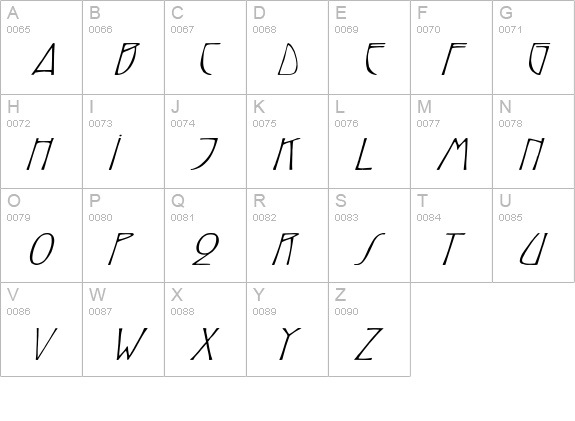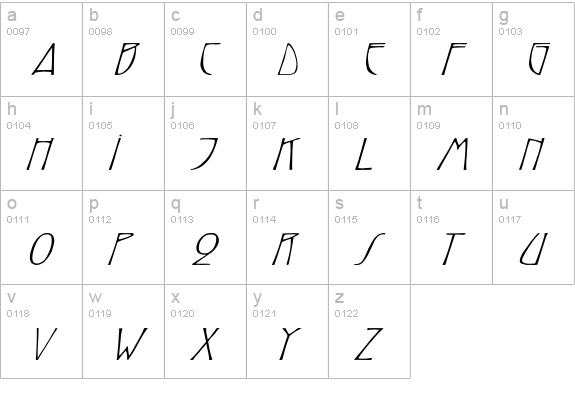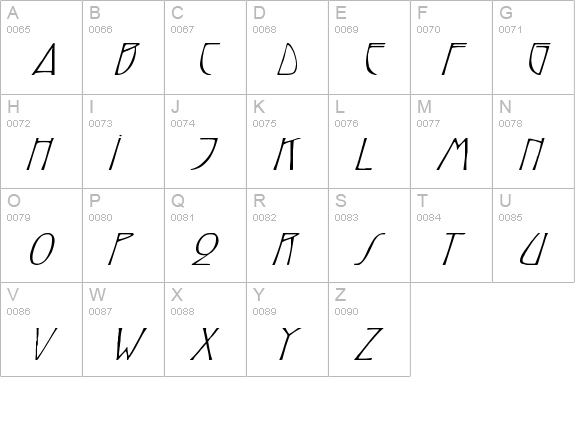
ReynoldCaps Wd Italic is a distinctive, italic variant in the ReynoldCaps typeface family \xE2\x80\x94 well suited to design and typography projects.
ReynoldCaps Wd Italic font is a stunning display typeface that adds a touch of elegance and sophistication to any design project. Its sleek and stylish letterforms are carefully crafted with a subtle italic inclination, creating a unique visual appeal that captures attention effortlessly. This font is perfect for creating eye-catching headlines, branding materials, logos, and more. Whether you're designing for print or digital media, ReynoldCaps Wd Italic font will elevate your work to new heights. One of the best features of ReynoldCaps Wd Italic font is that it is available for free download at FontsMarket.com. This means that you can easily access this exceptional font without having to spend a dime. FontsMarket.com is a reputable platform that offers a wide range of high-quality fonts, and ReynoldCaps Wd Italic font is no exception. By downloading and using ReynoldCaps Wd Italic font, you have the opportunity to enhance your design projects with a premium typeface that exudes professionalism and style. Its clean lines and graceful curves make it versatile and suitable for a variety of design applications. Whether you're a professional graphic designer, a student, or someone who simply appreciates beautiful typography, ReynoldCaps Wd Italic font is a must-have addition to your font library. Its timeless appeal and freely accessible nature make it a valuable asset that you can rely on for years to come. So why wait? Head over to FontsMarket.com and download ReynoldCaps Wd Italic font today. Unleash your creativity and elevate your designs with this remarkable font that combines elegance, versatility, and the convenience of being freely available.